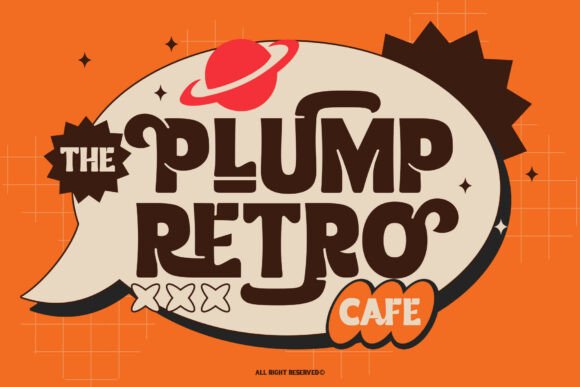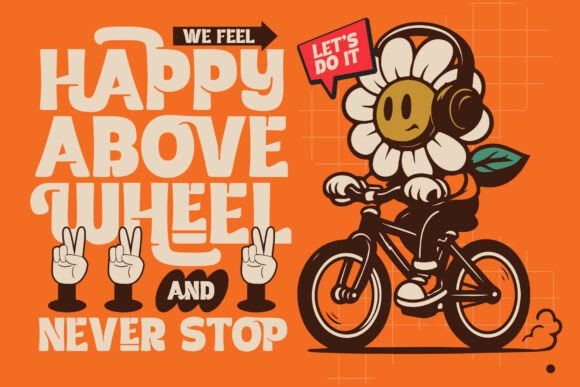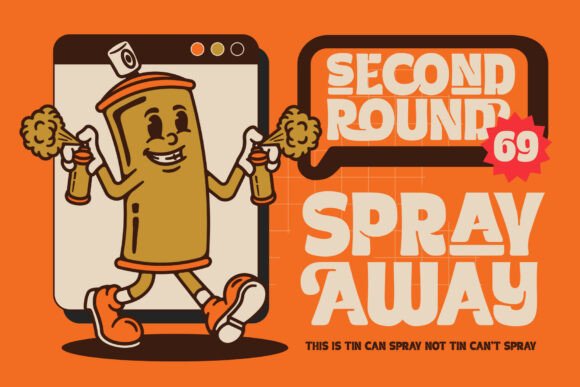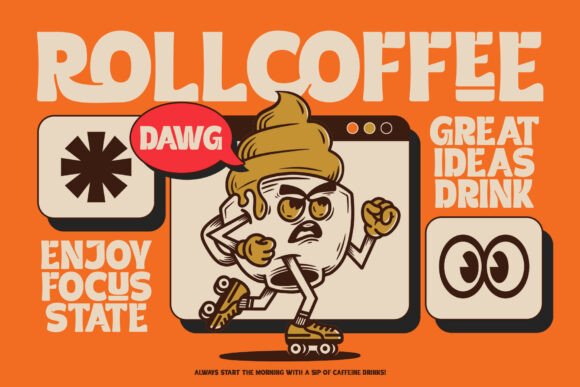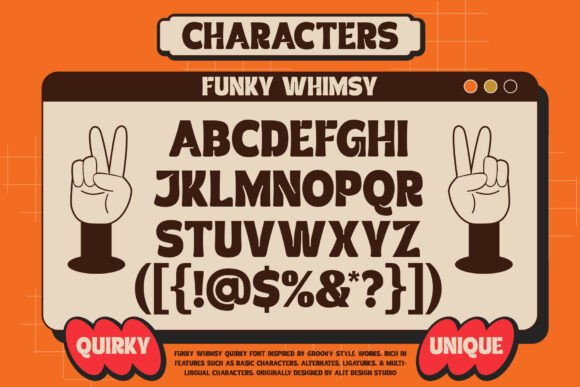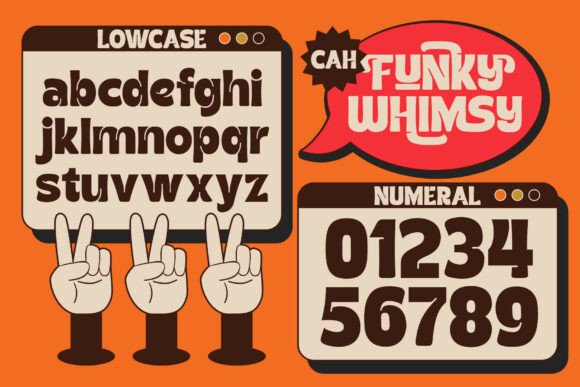
Step Back in Time with Funky Whimsy Font: Add a Splash of Retro Fun to Your Designs
Are you ready to infuse your designs with a healthy dose of nostalgia and playfulness? Look no further than the Funky Whimsy Typeface, a quirky and bold display font that embodies the carefree spirit of the 1970s. Originally designed by Alit Design Studio, Funky Whimsy is the perfect choice for designers and crafters seeking to add a retro touch to their projects.
A Font that Embodies the Groovy 70s Style
Funky Whimsy is more than just a font – it’s a time machine for your designs. Inspired by the golden era of groovy 70s style, this typeface boasts thick, bubbly curves, playful letterforms, and an unapologetically retro vibe that’s sure to make your designs pop. Whether you’re creating a standout logo, eye-catching packaging, or vibrant merchandise, Funky Whimsy brings an instant wave of nostalgia and cheerful energy to any project.
A Massive Typographic Playground
What sets Funky Whimsy apart from standard alphabets is its incredible versatility. This font is absolutely packed with OpenType features, giving you ultimate creative control. With a huge variety of stylistic alternates spanning from Stylistic Set 01 to Set 10, you can mix and match character shapes to create custom, hand-lettered looks in seconds. Want to add even more character to your design? Dive into the extensive range of alternates and create something truly unique.
Funky Whimsy’s creative possibilities are endless. Use it to:
• Create a bold and eye-catching logo that stands out from the crowd
• Design vibrant merchandise that pops with personality
• Develop packaging that demands attention
• Add a touch of whimsy to your branding and marketing materials
Key Features of Funky Whimsy
So, what makes Funky Whimsy so special? Here are just a few of its key features:
• Quirky, bold, and unique display font
• Inspired by the groovy 70s style
• Thick, bubbly curves and playful letterforms
• Unapologetically retro vibe
• Packed with OpenType features for ultimate creative control
• Huge variety of stylistic alternates (Stylistic Set 01 to Set 10)
• Customizable, hand-lettered looks in seconds
Funky Whimsy is the perfect choice for designers and crafters seeking to add a touch of retro fun to their projects. Whether you’re a seasoned pro or just starting out, this font is easy to use and offers endless creative possibilities. So why settle for boring, generic fonts when you can add a splash of funk and whimsy to your designs?
Get Ready to Add a Splash of Retro Fun to Your Designs